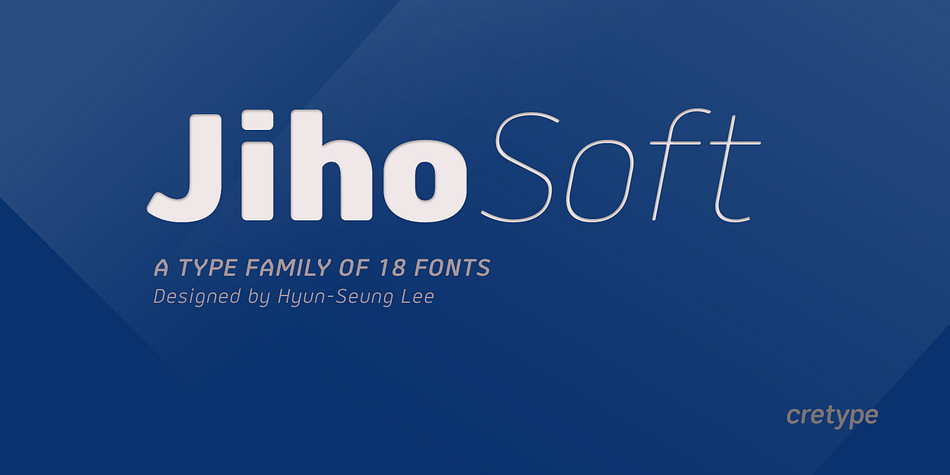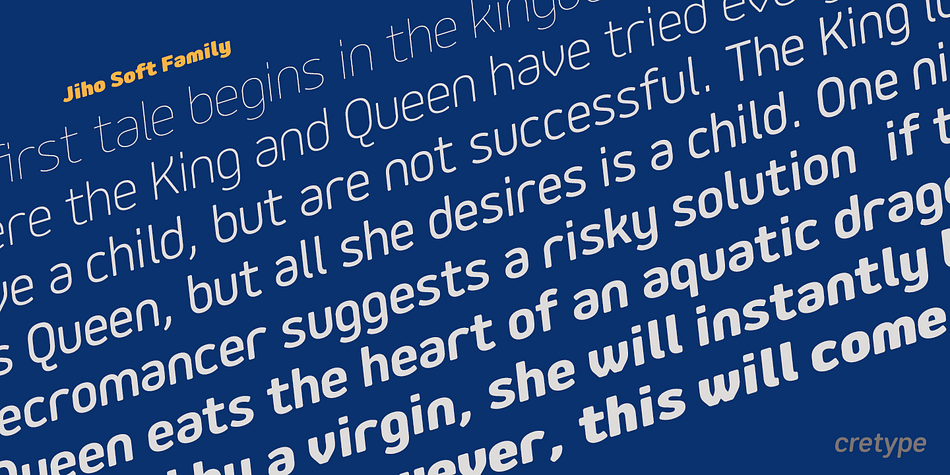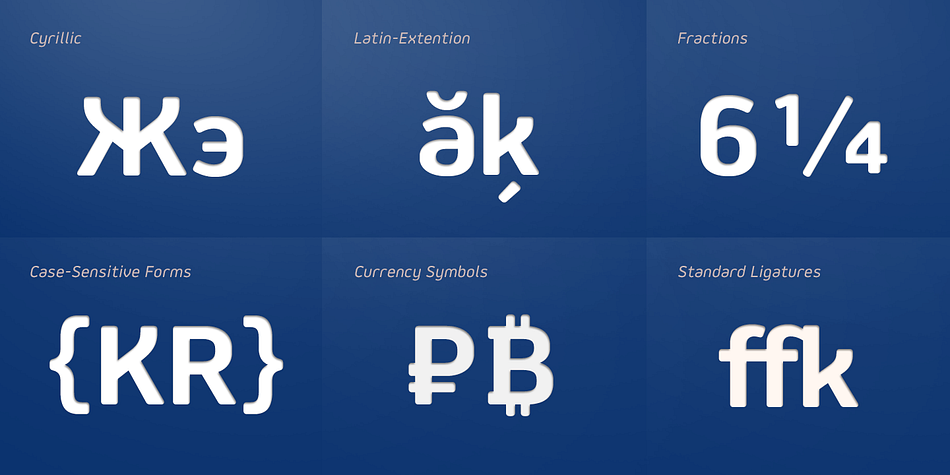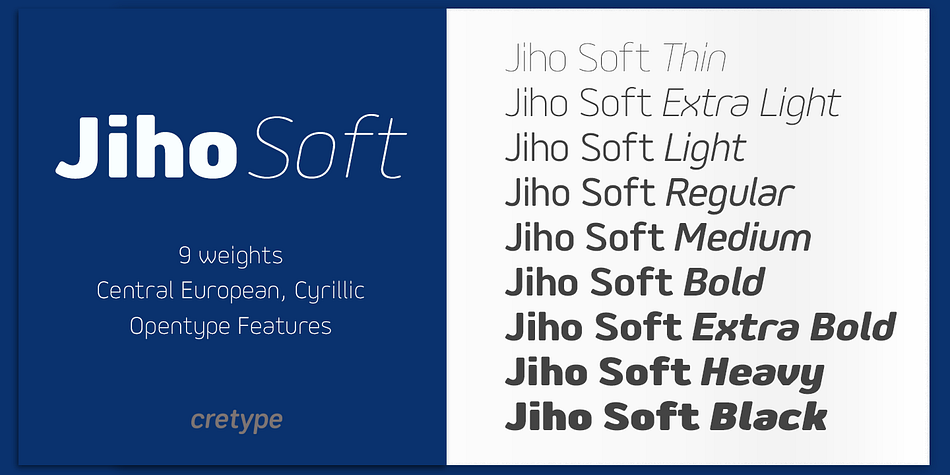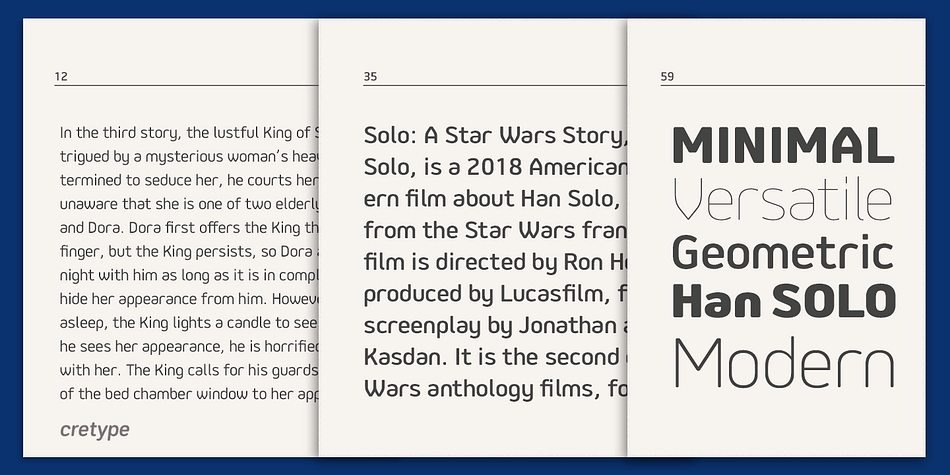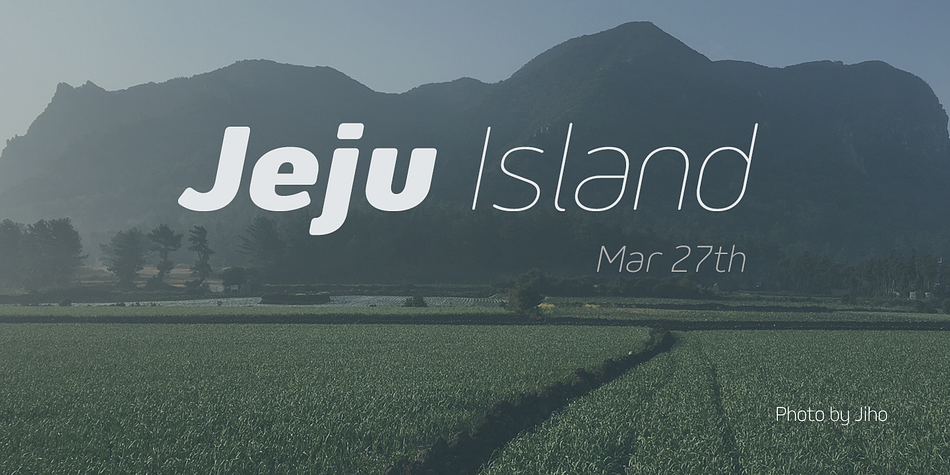
Designed by Hyun-Seung Lee, Jiho Soft is a sans serif font family. This typeface has eighteen styles and was published by cretype.
Jiho Soft Family is a modern & soft sans-serif typeface that is clean, simple and highly readable. It is the rounded version of Jiho Family. Letters in this type family are designed with minimal & modern shapes without any decorative distractions. The spaces between individual letter forms are precisely adjusted to create the perfect typesetting.
Jiho Soft is versatile type family of 18 fonts. Jiho Soft family consists of 9 weights (Thin, ExtraLight, Light, Regular, Medium, Bold, ExtraBold, Heavy & Black) with their corresponding italics.
The Open Type fonts contain complete Latin 1252, Cyrillic, Central European 1250, Turkish 1254 character sets. Each font includes proportional figures, tabular figures, numerators, denominators, superscript, scientific inferiors, subscript, fractions, old style-figures and case features.
We highly recommend it for use in signage, books, web pages, screen displays, and so on.